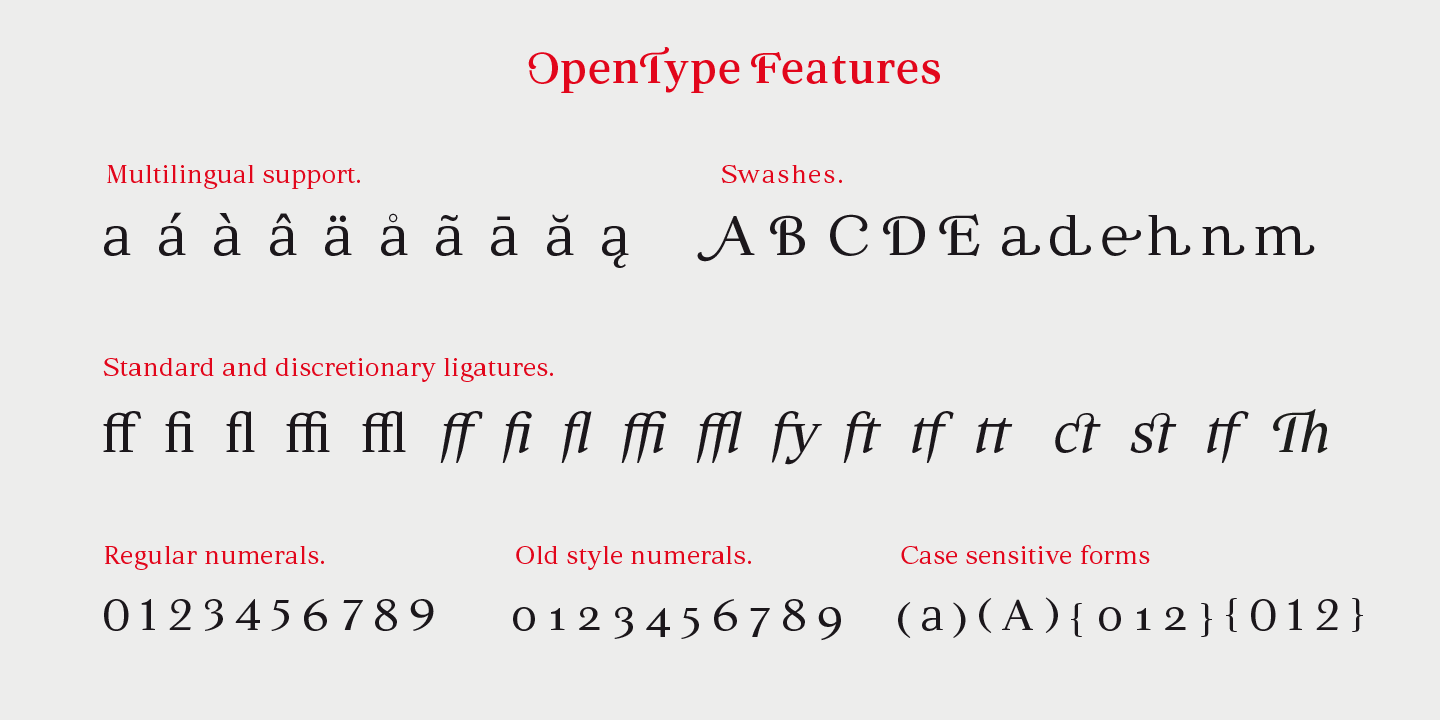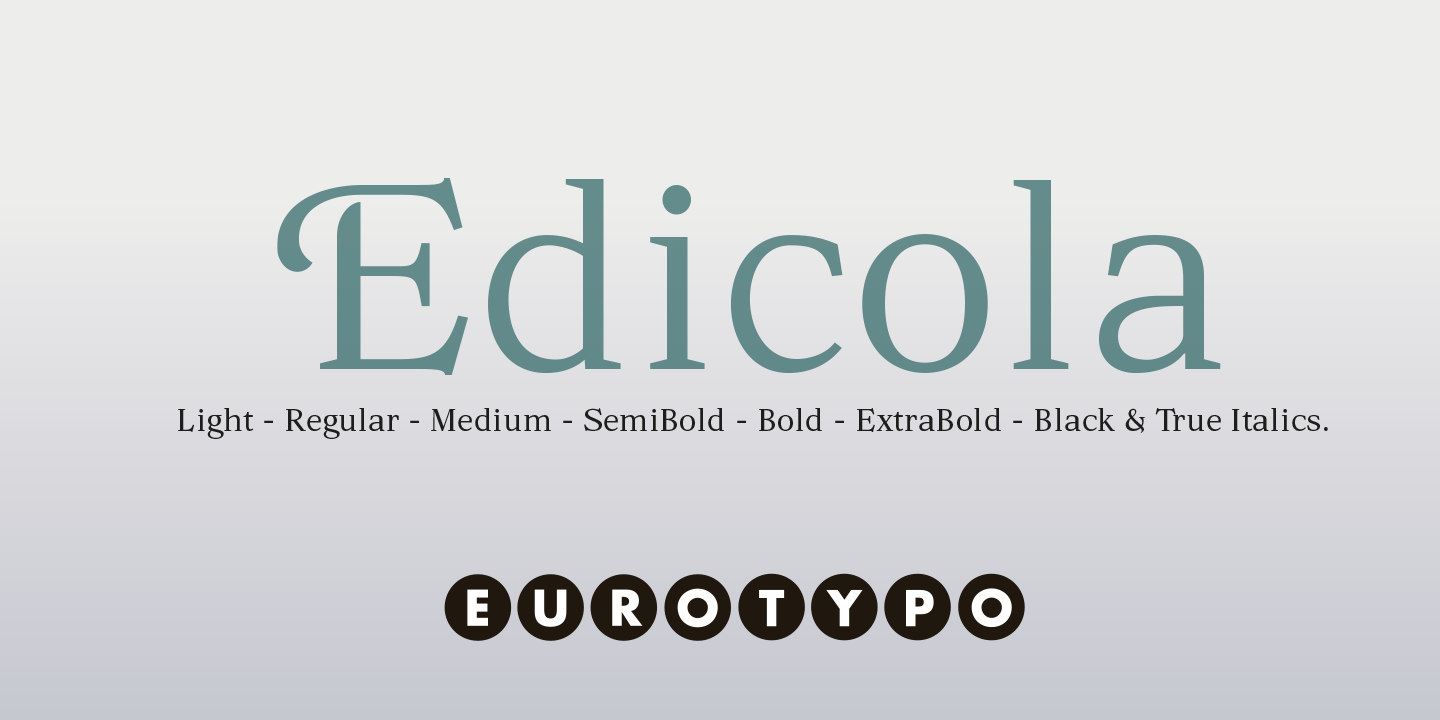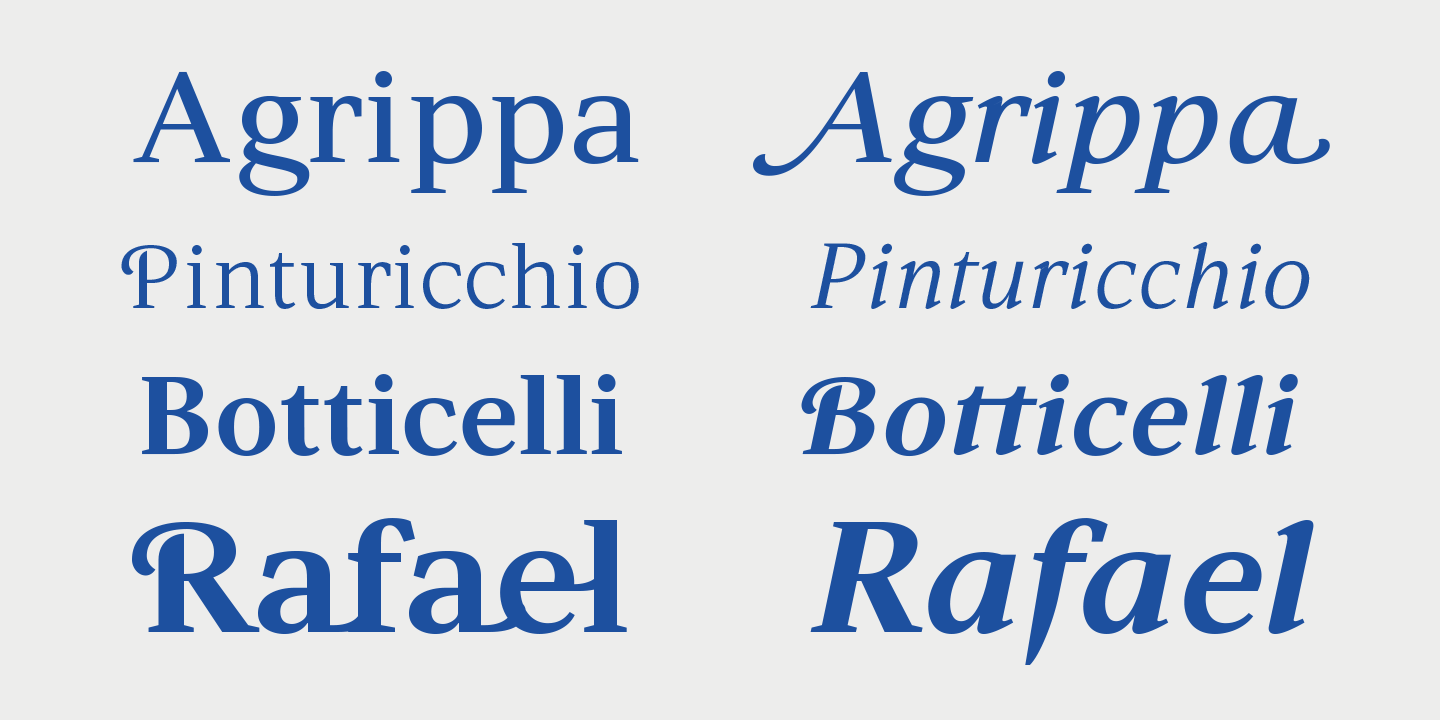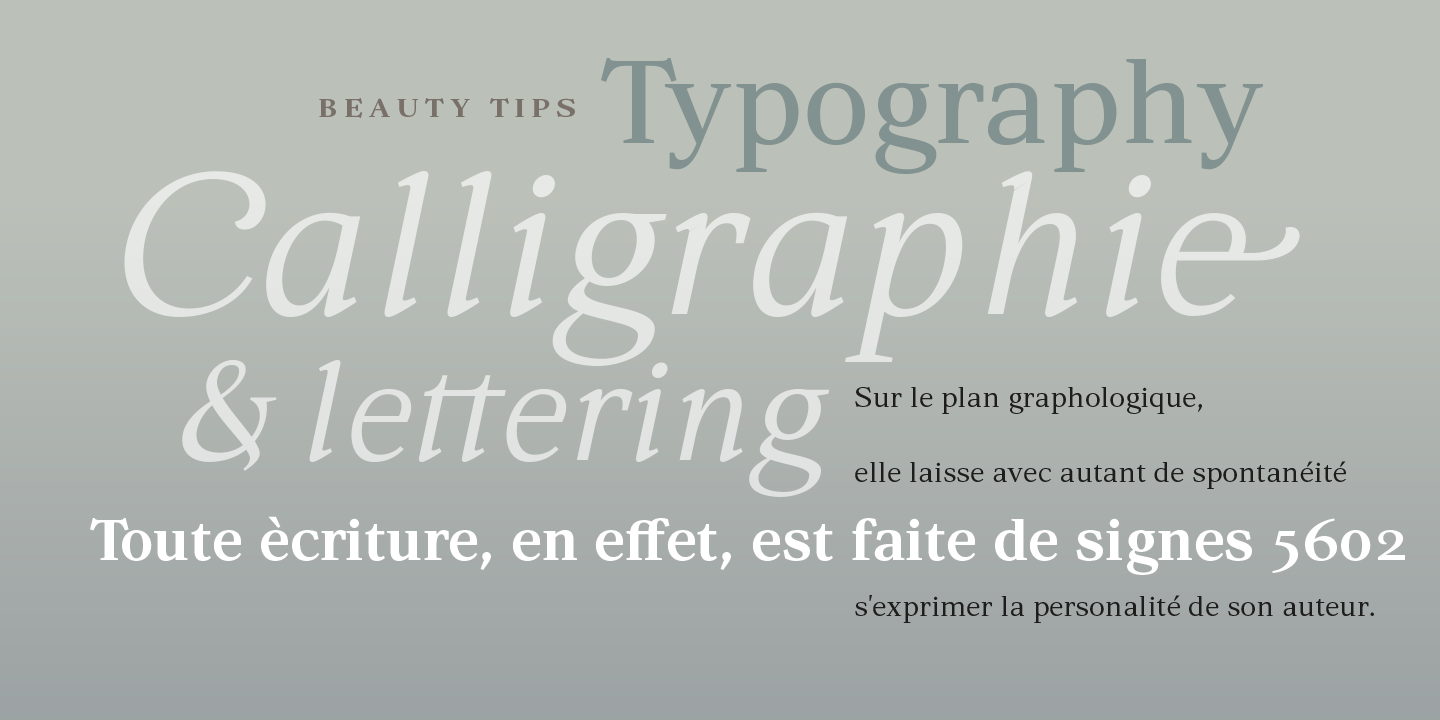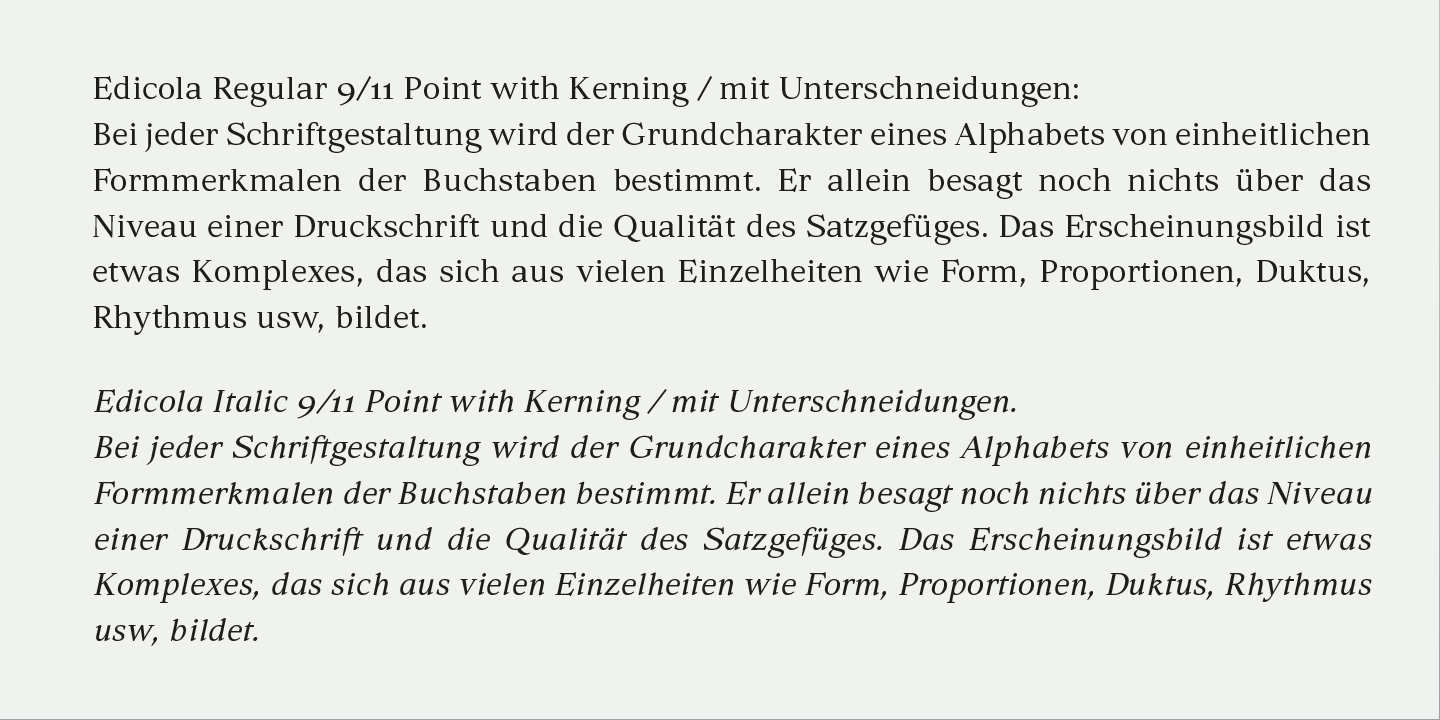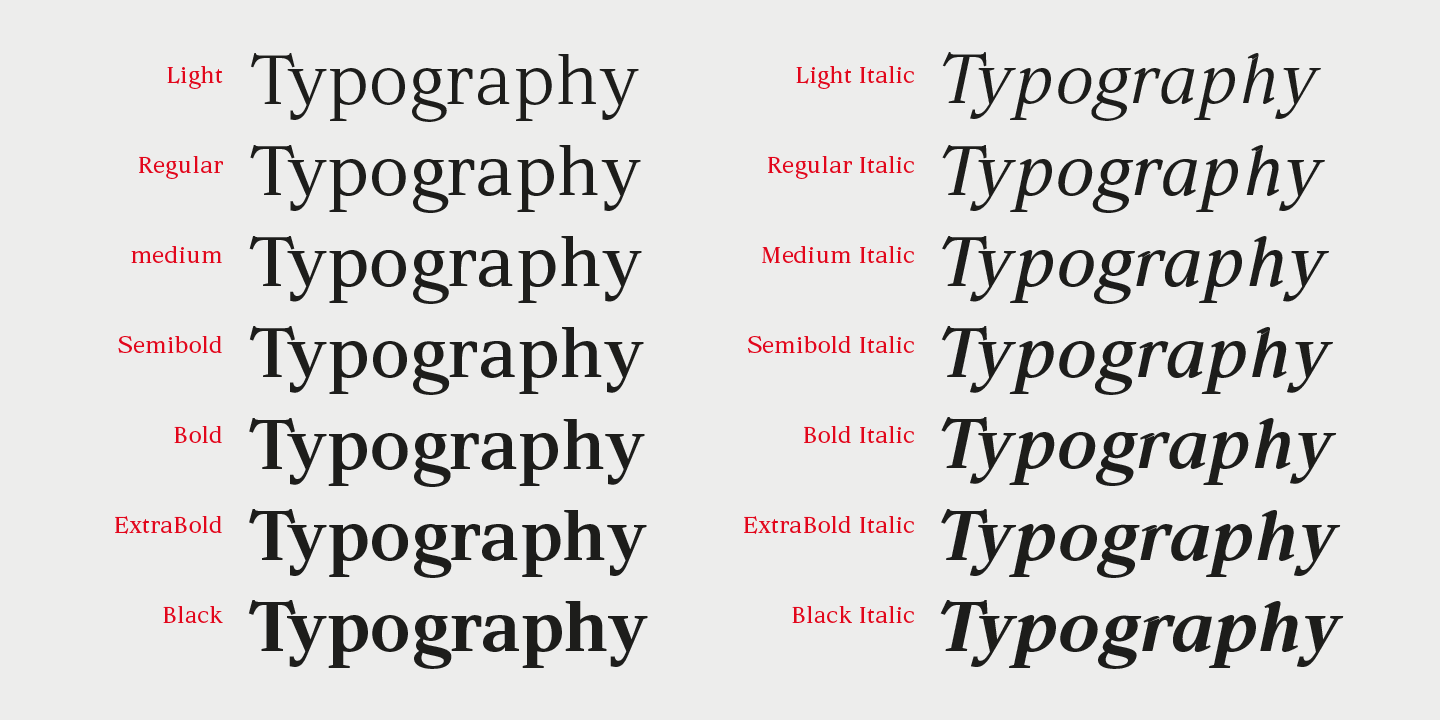
Edicola
Inspired by Italian Print Culture
Edicola takes its name from the traditional Italian edicola—the street newsstand that has long been a familiar element of the urban landscape, serving as a daily gateway to newspapers, magazines, and printed culture. These kiosks symbolize the intersection of information, design, and everyday life. While the role of print is evolving in the digital age, the edicola remains an enduring icon of communication and visual identity. This spirit of transition and resilience is embedded in the Edicola type family.
A Versatile Editorial System
Designed to bridge tradition and modernity, Edicola is a versatile type system that reflects the clarity and structure of editorial typography while embracing contemporary design needs. The family consists of seven carefully balanced stroke weights, ranging from light to bold, each paired with a true italic that maintains both readability and expressive contrast.
Swashes & Advanced OpenType Features
Edicola includes a rich set of typographic features to support professional design workflows. A dedicated swash variant adds elegance and personality for expressive headlines and branding, while old-style figures ensure harmonious integration within running text. A curated selection of ligatures enhances typographic rhythm and visual refinement.
Perfect for Magazines & Digital Branding
Highly adaptable and easy to work with, Edicola is ideal for editorial design, magazines, newspapers, branding, packaging, posters, and digital publications. Whether used for long-form text or bold display applications, it delivers a confident, contemporary voice rooted in the culture of print—reimagined for today’s digital marketplace.